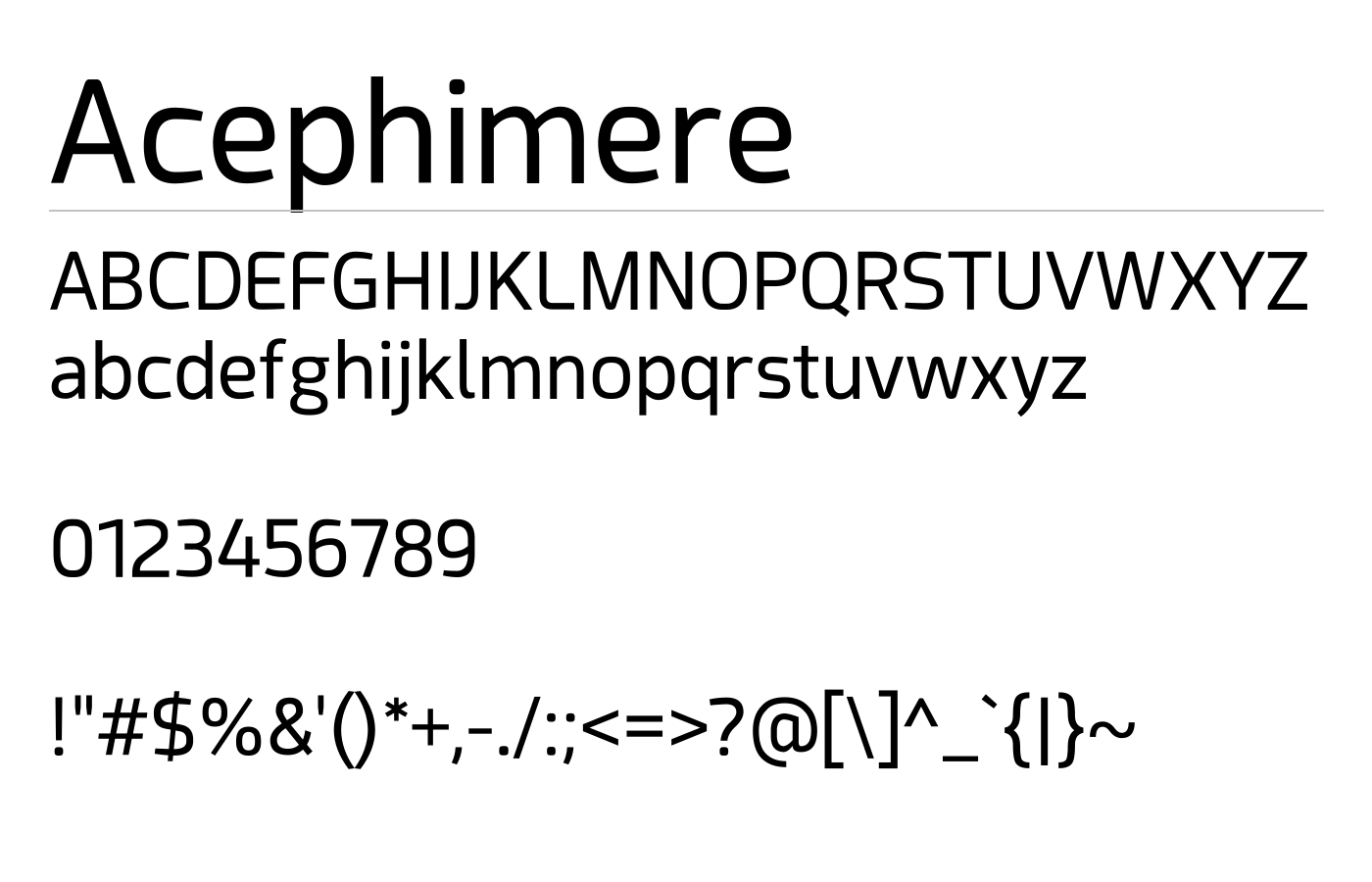
Acephimere is a clean and modern sans serif font characterized by its slightly condensed width and medium x-height, offering excellent readability. Its subtle geometric shapes with rounded terminals and uniform stroke weight create a friendly yet professional appearance, making it ideal for user interfaces, editorial layouts, and contemporary branding. This versatile typeface works well in both headlines and body text, delivering a sleek, approachable style perfect for digital and print use.
Acephimere Font